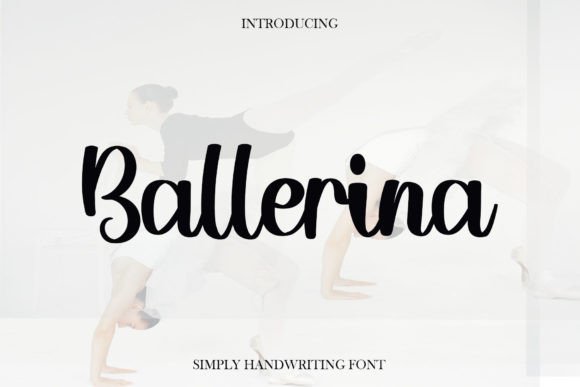
Step into the World of Elegance with Ballerina Font
As designers, we’ve all been there – staring at a blank canvas, waiting for that spark of inspiration to strike. For some, it’s the perfect combination of colors; for others, it’s a well-placed image or texture. For me, it’s the font – that perfect, elegant script that brings a design to life. And, in my opinion, there’s one font that truly stands out from the rest: the Ballerina Font.
This beautiful handwritten font is more than just a pretty face; it’s a tool that adds a touch of luxury to any design project. With characters that dance along the baseline, Ballerina Font is the perfect choice for those looking to create a high-end, sophisticated look. Whether you’re designing a wedding invitation, a luxury brand’s logo, or a beautiful piece of art, Ballerina Font is sure to bring a touch of elegance to your design.
Ballerina Font Key Features
- Font Family: Ballerina, a high-end script font designed for elegant and sophisticated typography.
- Unique Characteristics: Features a flowing, handwritten style with subtle flair and elegance, making it ideal for luxury branding, invitations, and special events.
Ballerina Font Review
Overall, I think the Ballerina Font is a beautiful and elegant script font, perfect for creating a touch of sophistication in your designs. ✨
- The Ballerina Font features a classic and timeless design that is sure to impress. ✨
- The font is highly customizable, making it perfect for designers who want to add a personal touch to their projects. ✨
- The Ballerina Font is available in a wide range of languages, making it a great choice for international projects. ✨
- One of the main limitations of the Ballerina Font is that it may not be the best choice for projects that require a lot of bold or condensed text. ⚠️
- The font may not be suitable for digital use, as it can be quite ornate and may not display well on smaller screens. ⚠️
While the Ballerina Font may have some limitations, I think it’s a beautiful and elegant script font that is perfect for creating a touch of sophistication in your designs. I would definitely recommend it to designers who are looking for a classic and timeless look. However, it’s worth noting that it may not be the best choice for every project, so be sure to test it out before committing to use it.
The Ballerina Font is a elegant and playful font that is perfect for:
- Wedding invitations and decorations
- Food and beverage labels
- Custom signage and banners
Remember to use the font in moderation and balance it with other design elements to avoid overwhelming the design.